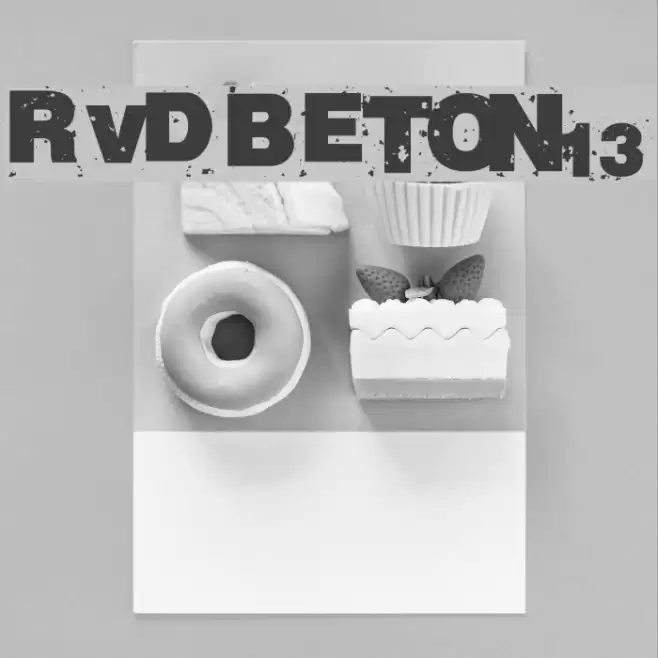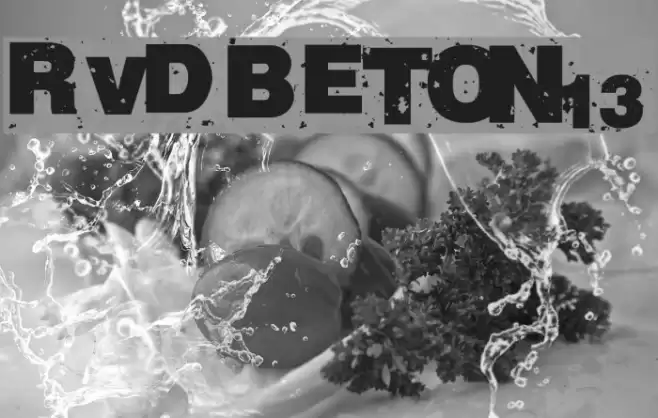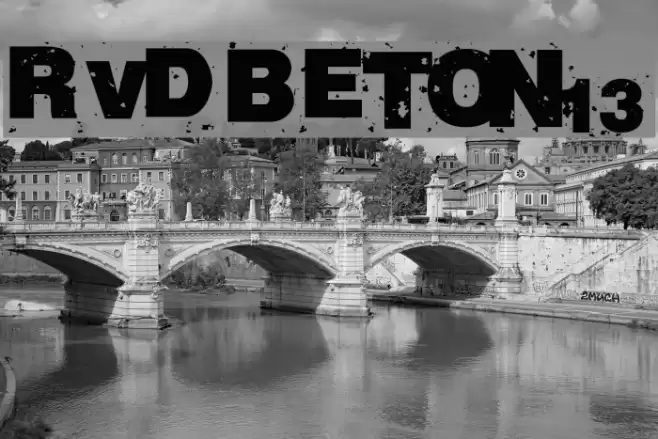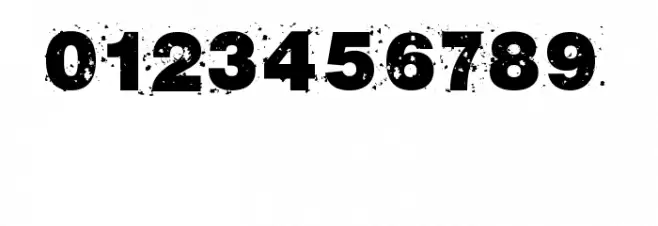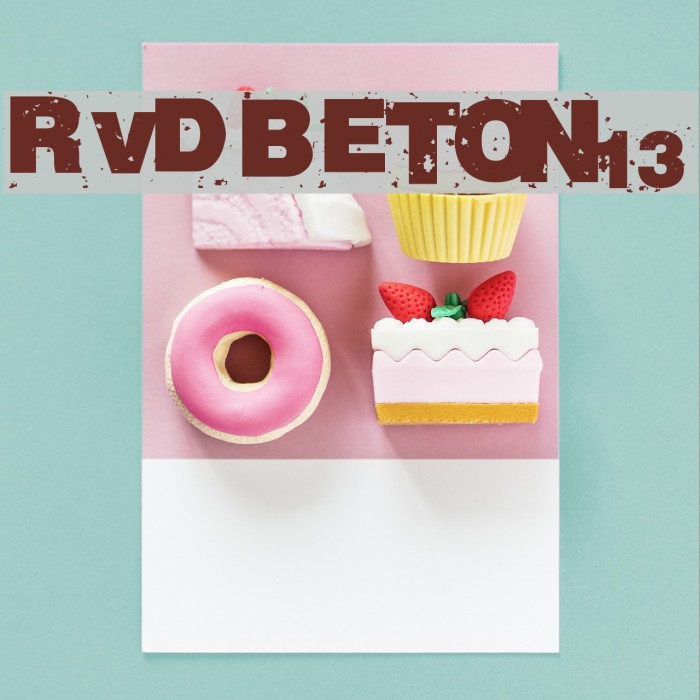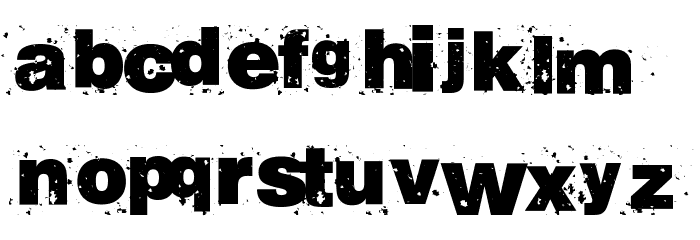
RvD_BETON13 Font
RvD_BETON13 Description
This font features a bold, distressed style with a rough, textured appearance, giving it a gritty and industrial feel. The characters are bold and impactful, with a consistent thickness throughout. The distressed effect adds a unique, weathered look, making it ideal for designs that require a rugged and edgy aesthetic. The uppercase and lowercase letters maintain a uniform style, and the numerals and special characters are equally bold and textured, ensuring a cohesive look across all text elements.
A bold, distressed font with a gritty, industrial texture from Crazy fonts.
- Proposed Projects: Ideal for posters, album covers, urban-themed designs, and branding projects that require a strong, edgy look.
- Overall Style: Industrial, Edgy, Rugged